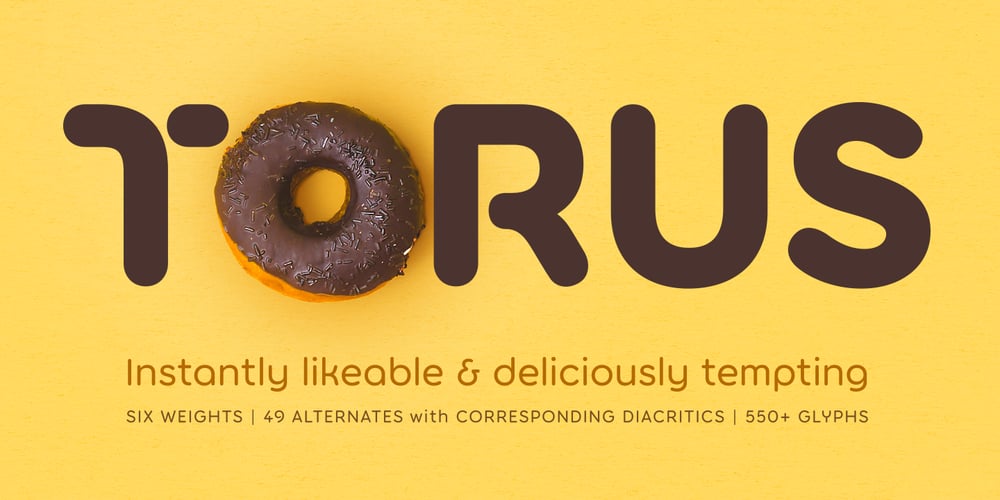
Torus
Torus font
Torus Font Family was designed by Paulo Goode and published by Monotype. Torus contains 6 styles and family package options. Torus is a simple, rounded monoline typeface that has been designed specifically for logo design, headlines and branding purposes. While the default character set is distinctive in its own right, graphic designers will love playing with the numerous alternate glyphs that will help them create unique wordmarks and logo designs. Torus’ simplistic forms and soft terminals make this a lovely, warm typeface perfect for a multitude of typographic applications. Please also consider: Torus Variations (2018) Torus Pro (2021) Key features: 6 weights 49 Alternates (via 2 Stylistic Sets) Full European character set (Latin) 550+ glyphs per font.